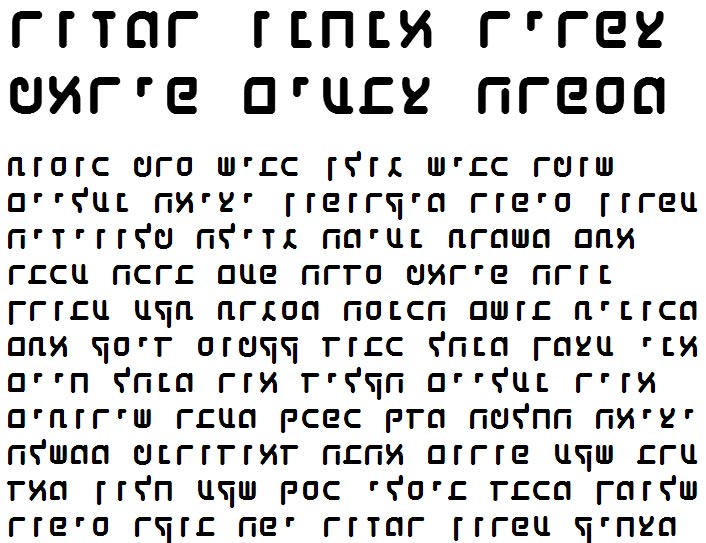
✓ "Courier New", which is distributed with Windows, is used mainly for writing computer code, because of its monospaced characters. In the Hebrew version of Courier, font creators based their shapes on "Miriam", an old Hebrew font, which is also distributed with Windows, and is used in Israel Railway's signage. I tried to see what happens when I strip the many "serifs" off the letters - will it worsen it? Will it better it? Apart from making minimal proportional adjustments to the ltters, the font is very similar to "Courier New". You be the judges. "Shaliah" is a courier in Hebrew.
X_Shaliah Sans Black Hebrew Font